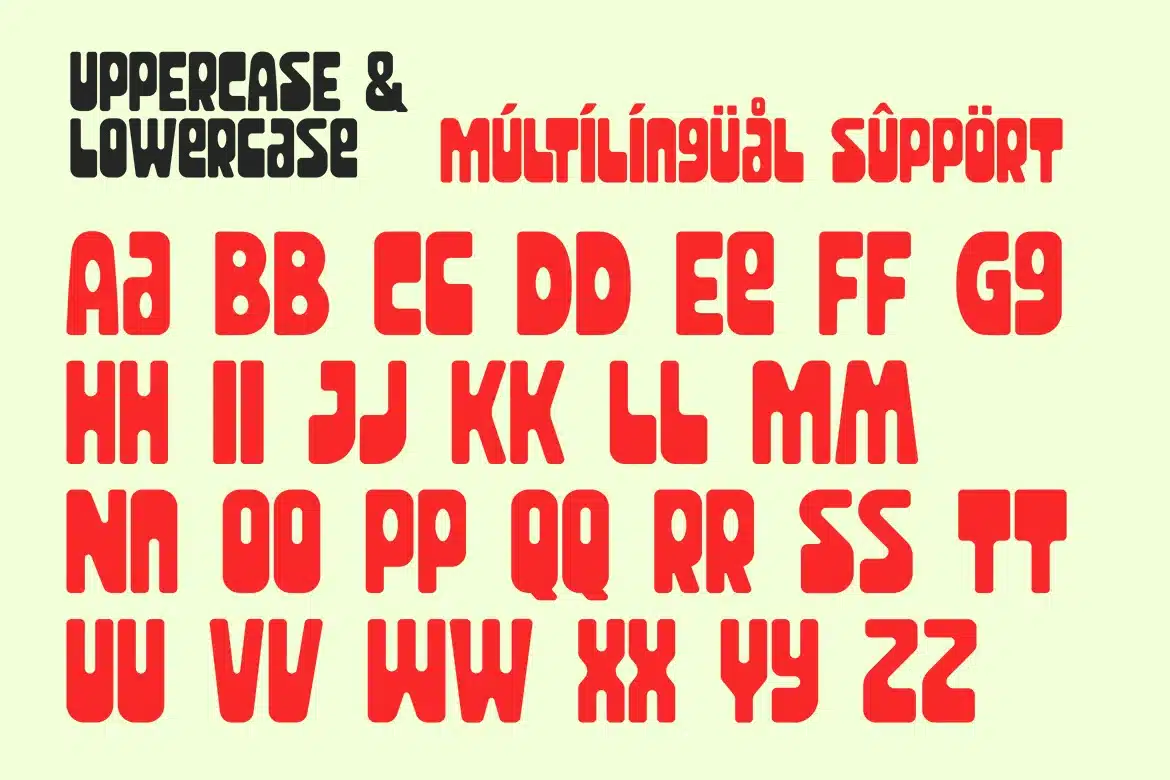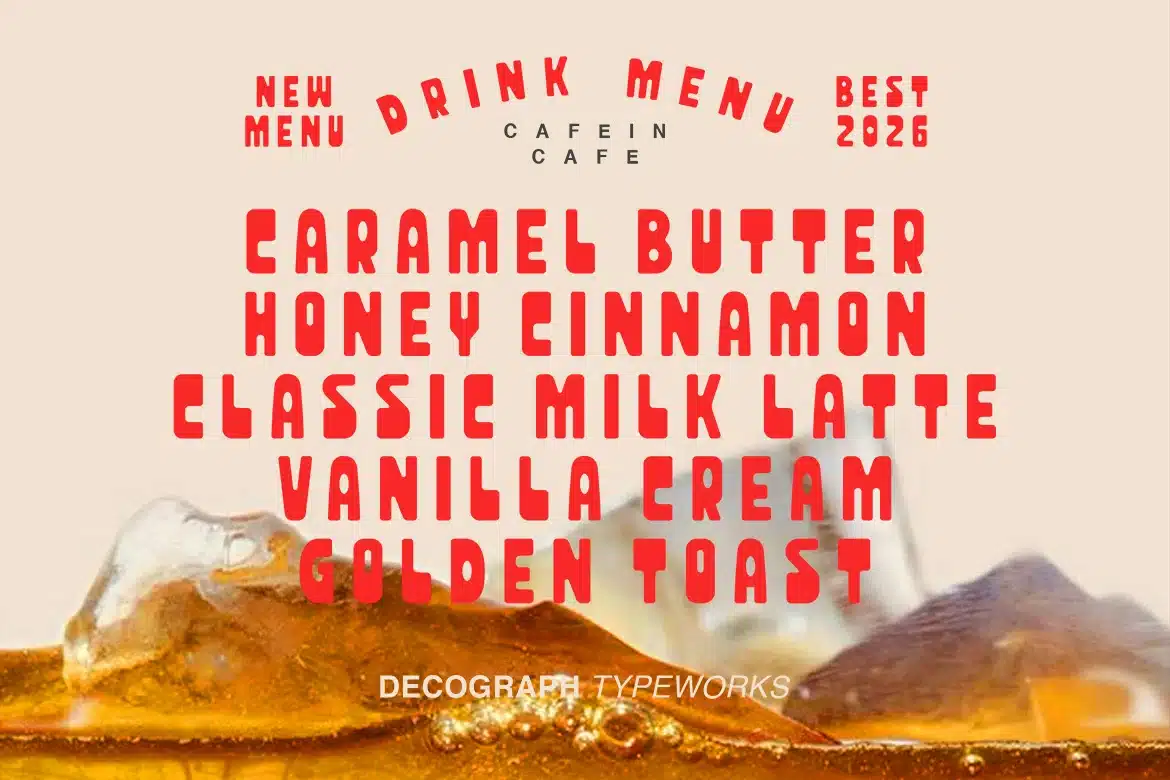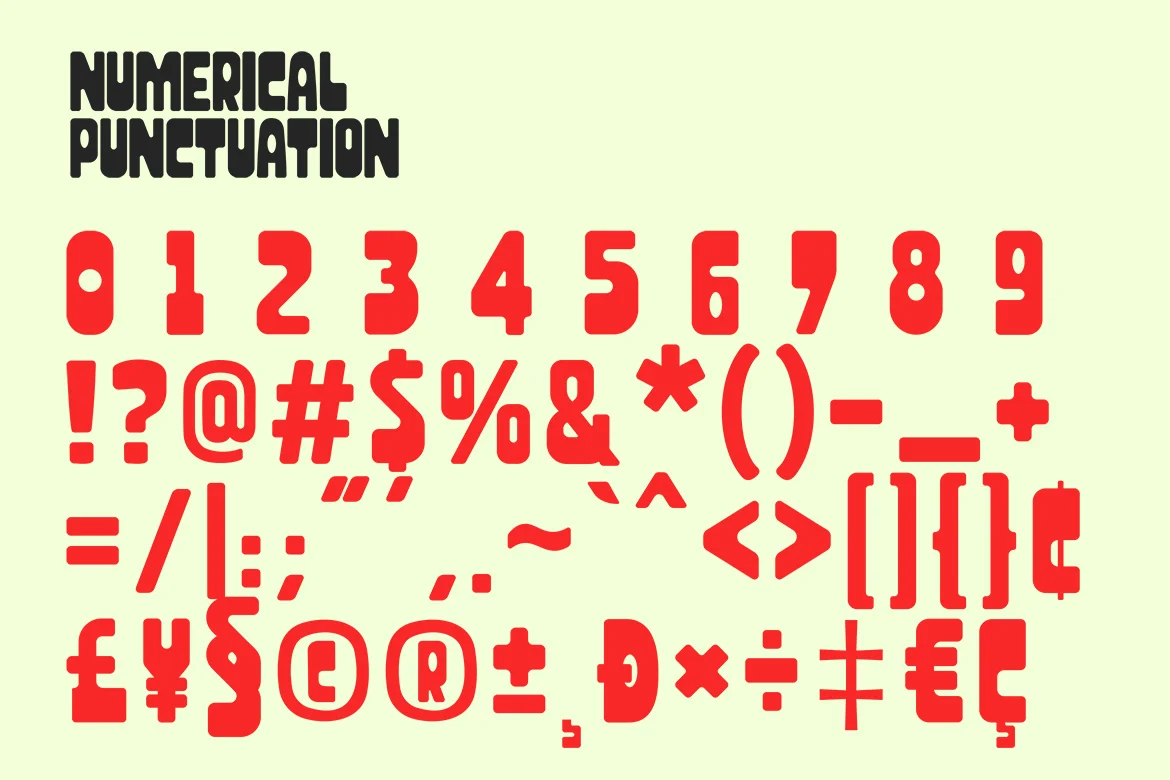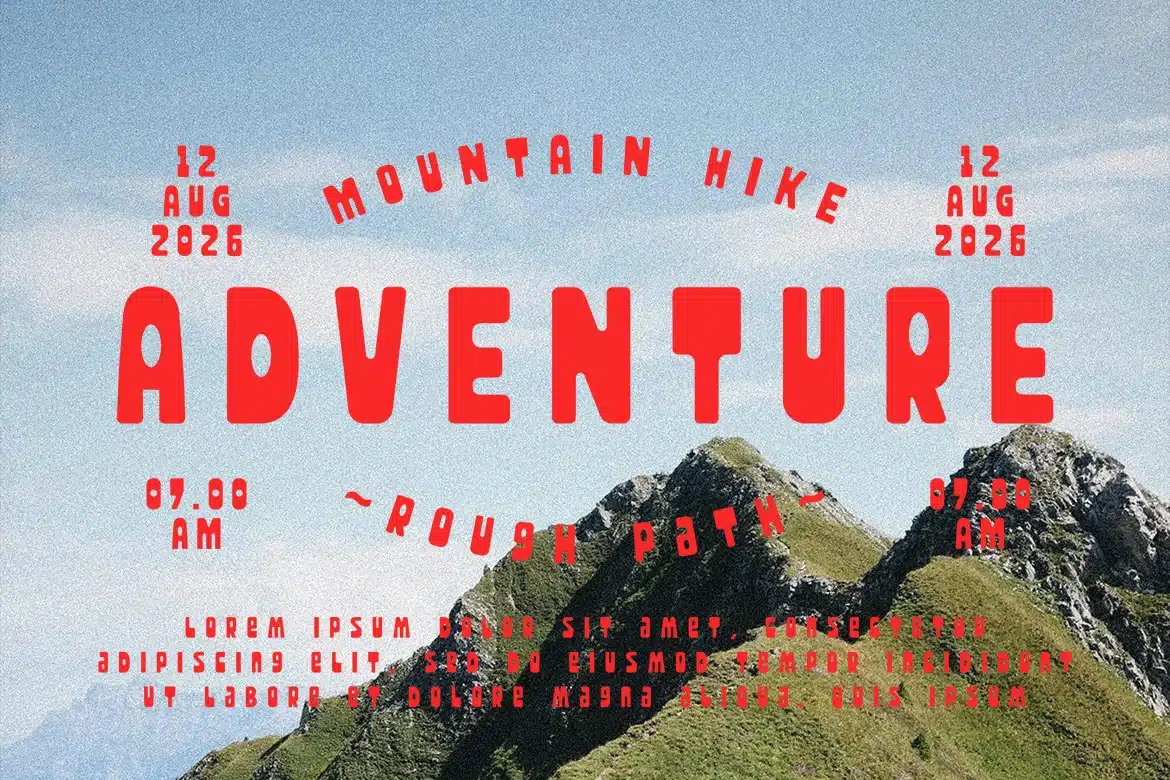
Jaquero – Food & Western Display Font
Jaquero Display Food Western Retro Font is a bold typeface that blends classic western character with retro food styling. Its thick shapes, soft edges, and strong structure create a warm, appetizing look that feels both vintage and modern. The western influence adds a rustic personality while the rounded forms keep it friendly and highly readable.
Best Used For:
- Restaurant Branding
- Cafe Menus
- Food Packaging
- Dessert Labels
- Western Themed Branding
- Product Packaging
- Logo Design
- Poster Design